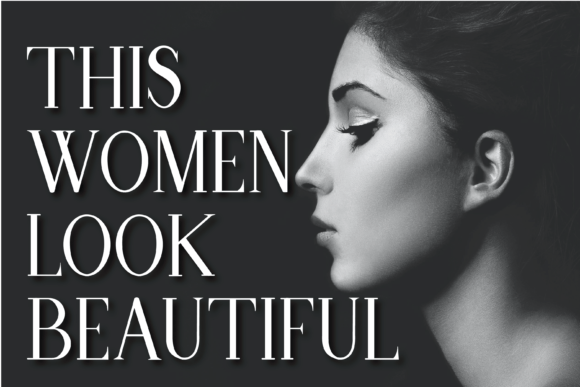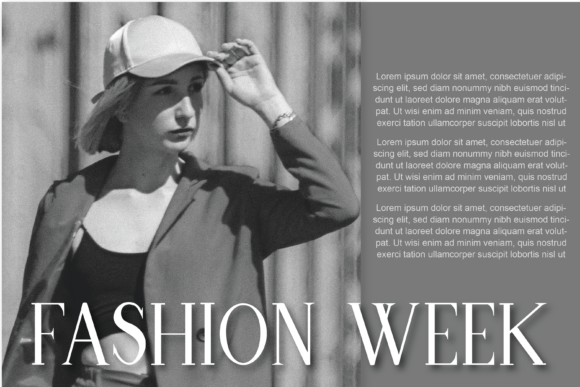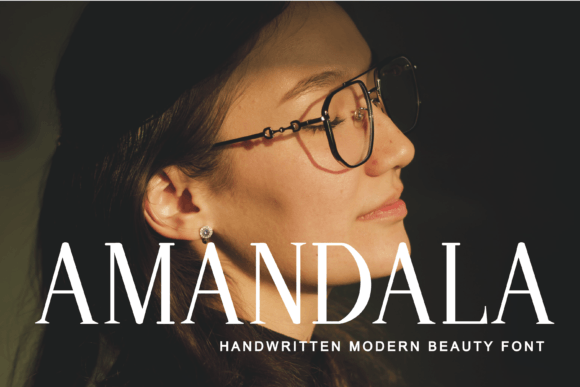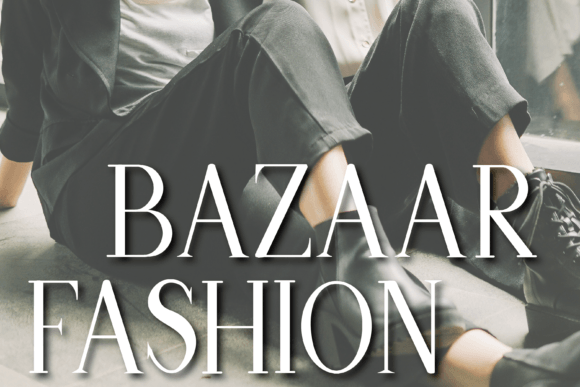
Unlock Your Creativity with the Futuristic Beauty Font
Have you ever found yourself staring at a blank canvas, searching for the perfect combination of words and design to bring your vision to life? You know the feeling – it’s a mix of excitement and frustration, as you try to push your creativity to new heights. But what if you had the perfect tool to give your ideas an extra boost of style and sophistication?
Enter the Beauty Font, a bold and cool display font that’s perfect for making a statement. With its modern and futuristic look, this font is designed to stand out and elevate your creative projects to the next level. Whether you’re a graphic designer, artist, or simply someone who loves to express themselves through words, the Beauty Font is an invaluable asset to have in your toolkit.
Key Features of “Beauty Font”
- Font Family: A high-end, elegant font family with 6 styles (Thin, Light, Regular, Medium, Bold, Black) designed for professional use.
- Character Set: Supports a wide range of languages, including Latin, Cyrillic, Greek, and many non-Latin scripts, making it a versatile choice for global applications.
- Unique Characteristics: Features a unique blend of modern and classic elements, making it perfect for luxury brands, high-end fashion, and premium products.
Design Review: Beauty Font
Overall, I was impressed with the initial look and feel of Beauty Font, it immediately caught my attention with its elegant and refined aesthetic ✨. The font is perfect for designers who want to add a touch of sophistication to their projects. The clean lines, balanced proportions, and harmonious curves make it a great choice for any branding or typography project.
The font has a wide range of weights and styles, making it highly versatile ✨. This allows designers to create a cohesive look and feel across various media, from digital interfaces to print materials. The font also supports a wide range of languages, making it a great choice for global brands.
- ⚠️ The font may not be suitable for highly technical or informative content, as it can appear too elegant and may not convey the necessary level of professionalism.
- ⚠️ Some users may find the font too decorative, which can make it difficult to read in certain situations.
- ⚠️ The font may not be optimized for certain font sizes or resolutions, which can affect its overall appearance.
In conclusion, Beauty Font is a beautiful and versatile font that can add a touch of elegance to any project. While it may have some limitations, it is a great choice for designers who want to create a sophisticated and refined aesthetic.
For optimal results, use the Beauty Font in conjunction with a contrasting background color to make your text stand out.
For a professional look, pair the Beauty Font with a clean and minimalist design.
For effective communication, use the Beauty Font in headings and titles to draw attention to important information.
The Beauty Font is ideal for:
- Cosmetic and beauty branding.
- Product labels and packaging.
- Marketing materials and advertisements.
- Editorial and fashion content.
Alternatives to “Beauty Font” for Designers
Great Vibes is a beautiful, elegant script font perfect for adding a touch of sophistication to your designs. It’s ideal for use in titles, headings, and quotes where a flowing, cursive style is desired. Compared to Beauty Font, Great Vibes has a more refined and luxurious feel, making it suitable for high-end branding and marketing materials.
Carolyna Pro is a modern script font with a unique, hand-written feel. It’s great for use in logos, headings, and body text where a creative and expressive style is needed. Unlike Beauty Font, Carolyna Pro has a more contemporary and edgy vibe, making it perfect for fashion, lifestyle, and entertainment brands.
Alex Brush is a beautiful, handwritten script font with a personal and emotional feel. It’s ideal for use in titles, headings, and quotes where a warm and intimate style is desired. Compared to Beauty Font, Alex Brush has a more rustic and earthy feel, making it suitable for use in design projects that require a sense of authenticity and humanity.